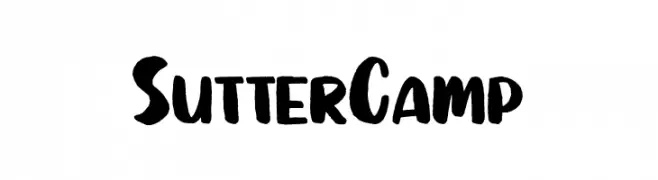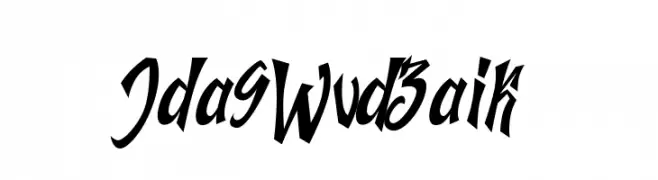
A bold, brush-style font with sharp edges and a dynamic, hand-painted look.
A dynamic, cursive script font with fluid, brush-like strokes.
A bold, playful, hand-drawn font with a whimsical and friendly style.
A bold, handwritten font with a playful and energetic style.
A bold, playful handwritten font with thick strokes and rounded edges.
A bold, gothic Blackletter font with intricate details and a medieval flair.
A bold Blackletter font with intricate, gothic-inspired design.
A flowing, cursive font with elegant, connected characters.
A modern, elegant script font with fluid, cursive strokes and medium contrast.